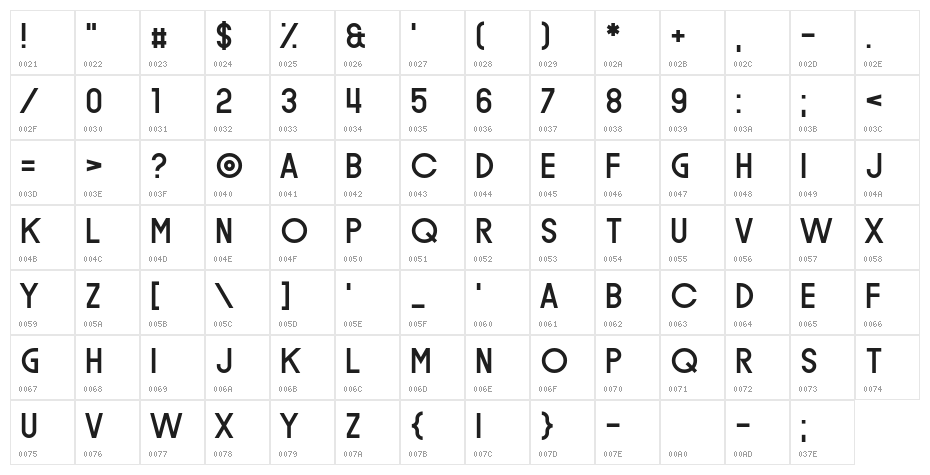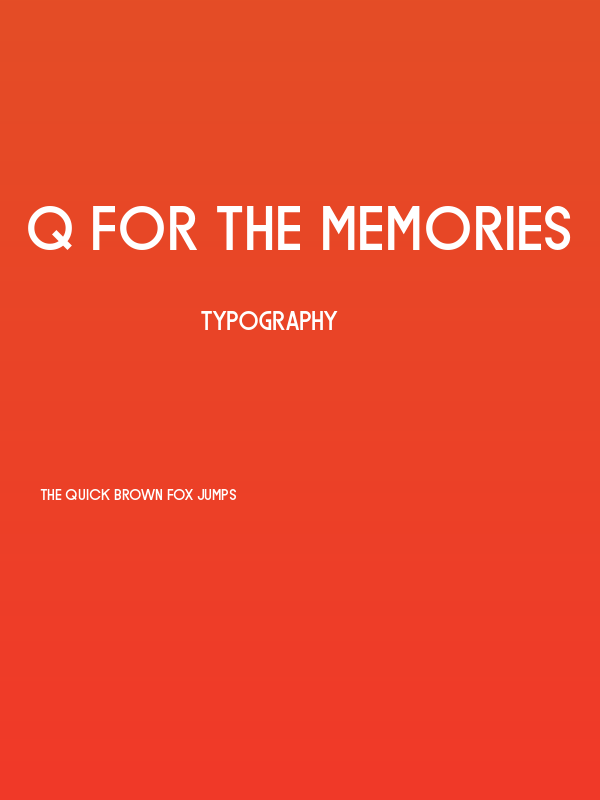
Q for the Memories Font
Q for the Memories Description
This font features a clean and modern sans-serif design, characterized by its uniform stroke width and geometric shapes. The characters are well-balanced, with a consistent height and width that provides a harmonious appearance. The uppercase letters are bold and assertive, while the lowercase letters maintain a similar weight, ensuring readability and clarity. The numerals are straightforward and align perfectly with the overall style, making them suitable for various applications. Special characters are designed with the same attention to detail, ensuring they integrate seamlessly with the rest of the typeface.
| Proposed Projects | Ideal for branding, advertising, web design, and editorial projects where clarity and modernity are essential. |